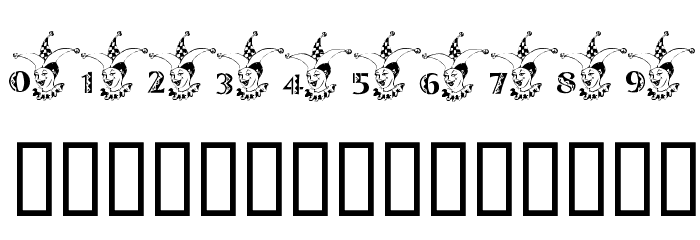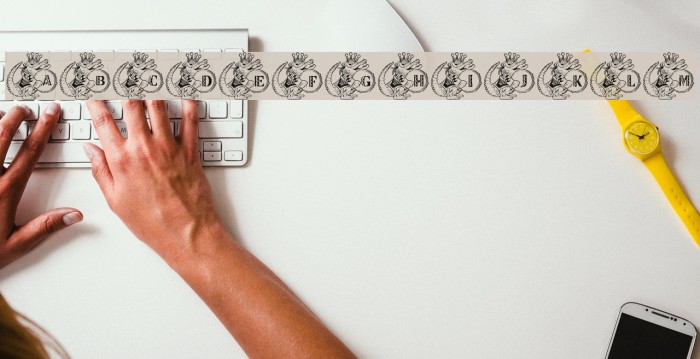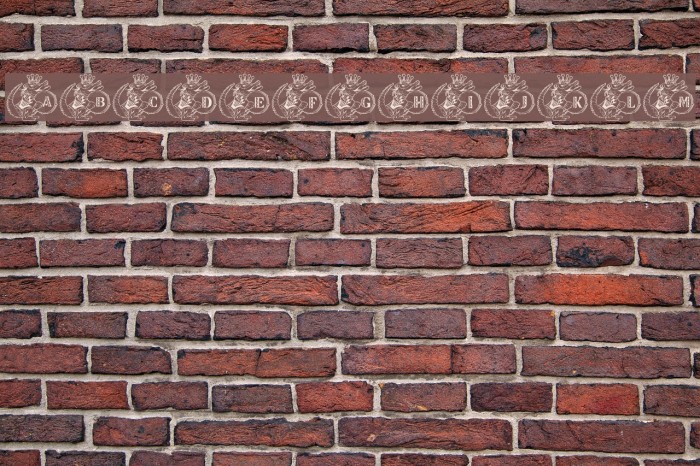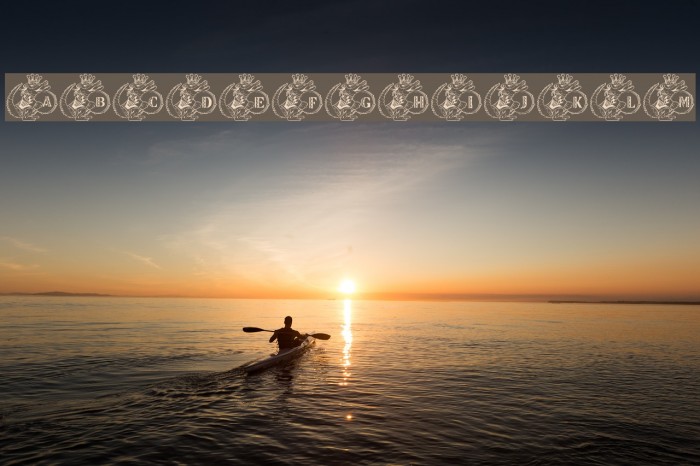
Croc Krewe Font
This font features an ornate and decorative style, with each letter encapsulated within a detailed illustration of a crocodile. The uppercase letters are prominently displayed, each surrounded by intricate designs that add a unique flair to the overall appearance. The numbers are similarly styled, each accompanied by a whimsical jester's face, adding a playful and festive touch. This font is highly decorative, making it ideal for projects that require a bold and eye-catching aesthetic. The intricate details and unique character of each glyph make it stand out, perfect for creative and themed designs.
An ornate, decorative font with crocodile-themed letters and jester-accompanied numbers.
- Proposed Projects: Ideal for themed event invitations, decorative posters, or any project needing a unique and playful touch.
- Use Case: Headlines, Logos, Themed Events